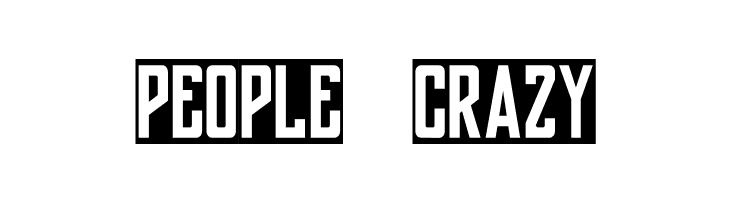
A bold, geometric font with high contrast and a vintage-modern style.
A bold, geometric font with tall, narrow letters and enclosed rectangular blocks.